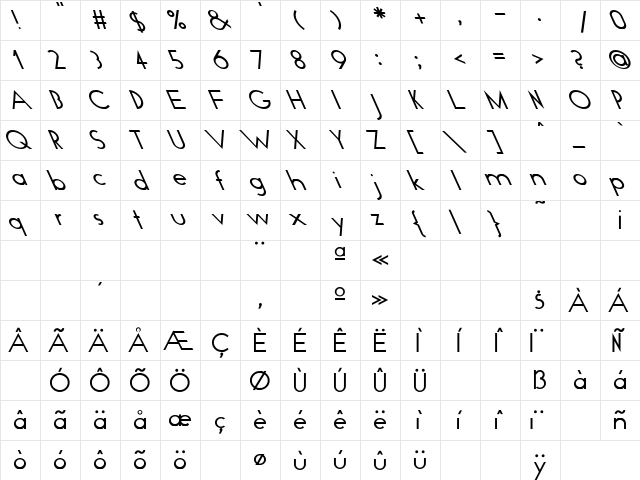
Geo Plain Lefty Regular
Design Context for Geo Plain Lefty Typeface
Geo Plain Lefty is a composed and adaptable typeface that performs quietly and consistently across a wide range of design contexts.